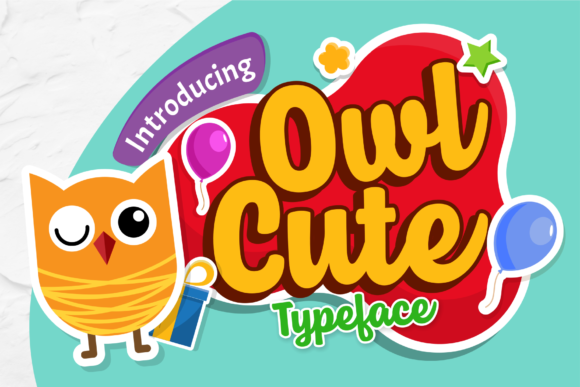
Looking for a font that will make your designs come alive with sweetness and joy? Look no further than Owl Cute Font! This display font, created by brithostype, is the perfect addition to any project that needs a friendly touch.
Owl Cute Font is more than just a font - it's a burst of happiness that will instantly uplift your designs. Its charming and playful style will captivate your audience and leave a lasting impression. Whether you're designing wedding invitations, greeting cards, or even logos, Owl Cute Font will bring a delightful and whimsical vibe to your creations.
With Owl Cute Font, you can effortlessly express the love and joy that weddings represent. Its graceful curves and stylish characters make it the ideal choice for adding elegance to wedding names, invitations, and other related designs. Your wedding stationery will shine with Owl Cute Font, leaving a lasting impression on your guests and creating a truly memorable experience.
Not only does Owl Cute Font bring a touch of magic to wedding designs, but it also adds a playful spark to any project. Its versatility allows it to be used in a wide range of applications, from children's books to party invitations. Let your creativity soar as you explore the endless possibilities of Owl Cute Font.
Embrace the sweetness and joy of Owl Cute Font and let your imagination take flight. Get ready to create spectacular designs that will leave a lasting impression on everyone who sees them. Don't wait any longer - start designing with Owl Cute Font and watch your projects come to life!